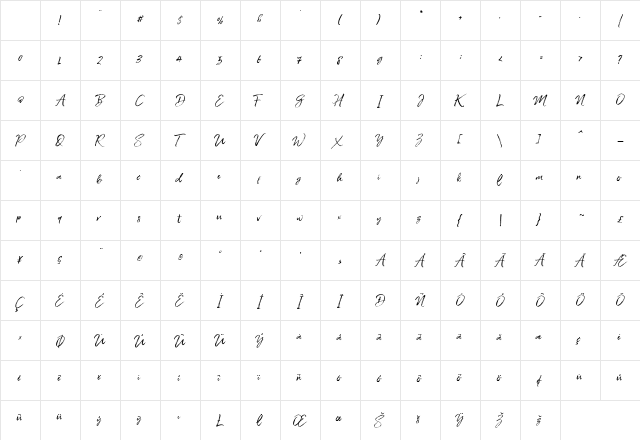
Complete Coldays Memories Brush Regular glyph index. Displaying only characters natively supported by Coldays Memories Brush Regular font.
Coldays Memories Brush flows with the natural rhythm of handwritten lettering, making it ideal for designs that call for warmth and personal expression.
Font Pairing: Combine Coldays Memories Brush with a simple geometric sans for maximum contrast - the tension between flowing curves and clean structure is a classic typographic pairing.
Pro Tip: Use Coldays Memories Brush for short runs of text - names, titles, or taglines. Extended body copy in script faces tires the eye quickly.